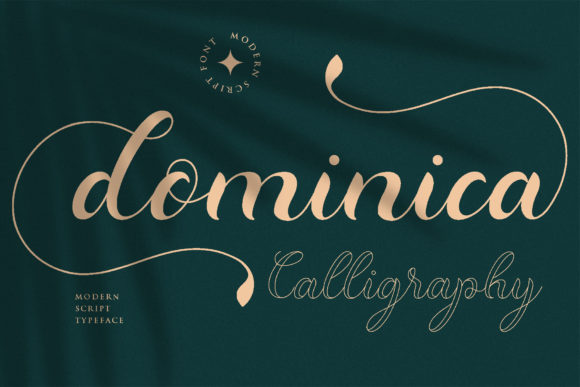
In a world saturated with digital monotony, Dominica Calligraphy emerges as a breath of fresh air, a font that whispers poetry in the language of ink. Its graceful strokes, like the delicate flourishes of a master calligrapher, evoke a sense of timeless elegance and heartfelt emotion.
Step into a realm of refined aesthetics, where Dominica Calligraphy transforms your words into art. Its meticulously crafted alternates and ligatures dance harmoniously together, creating a visual symphony that captures the eye and stirs the soul. Each letter, a work of art in its own right, flows seamlessly into the next, forming a cohesive tapestry of beauty.
Elevate your love letters, wedding invitations, branding designs, and social media posts with the allure of Dominica Calligraphy. Its versatility transcends genres, effortlessly adapting to a myriad of creative endeavors. Whether you're a seasoned designer seeking a touch of sophistication or a budding entrepreneur yearning for a distinct brand identity, Dominica Calligraphy is your muse, your creative companion.
Indulge in the artistry of Dominica Calligraphy and witness the transformation of ordinary words into captivating expressions of love, joy, and timeless elegance. Its script typeface, a symphony of curves and flourishes, invites you to explore the depths of your creativity, to unveil hidden nuances of emotion through the written word.
With Dominica Calligraphy, you possess the power to craft a visual narrative that transcends the boundaries of language, a story told in the strokes of a pen, the whisper of a quill. Let your imagination soar, let your words dance, and allow Dominica Calligraphy to orchestrate a visual masterpiece that captivates and inspires.